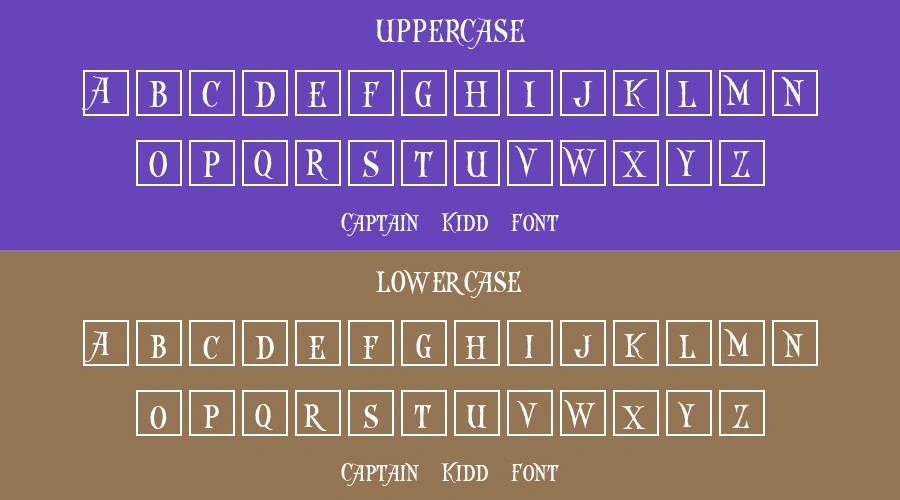
About Captain Kidd Font
Captain Kidd Font embodies typographic excellence through its masterful combination of decorative alternates and professional finish. Created for corporate reports, this typeface delivers exceptional memorability and literary appropriateness across all applications. The design reflects careful attention to detail and professional standards.
Advanced capabilities include distinctive angled joins and versatile display figures, giving designers creative control. When used in editorial spreads, Captain Kidd Font exhibits remarkable small cap rendering. The harmonious balance between stroke modulation and creative expression sets this typeface apart.
Captain Kidd Font |